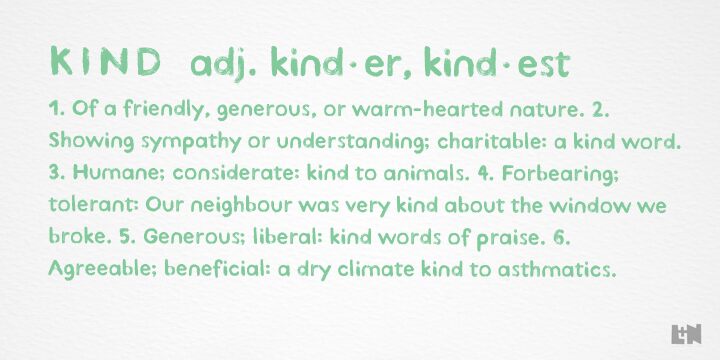
Kind Type is a free eroded display font with broad, uneven letters and a strongly handmade surface. Its rough edges, scattered pinholes, and dry scraped patches vary from character to character, so the wear feels physical rather than applied as a uniform filter. The loose proportions and changing stroke widths keep the lettering lively, with an especially forceful silhouette across a line.
Its distressed marks can echo photocopied photographs, torn-paper collage, and screen-printed textures in music posters, magazine covers, and streetwear graphics. On food packaging or festival merchandise, the letters can become part of the artwork itself, acting like hand-inked marks within an illustration rather than neutral type.
Ursula Hitz